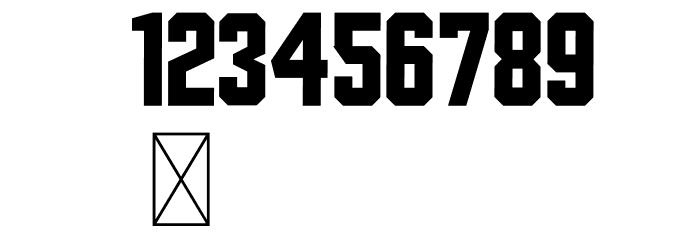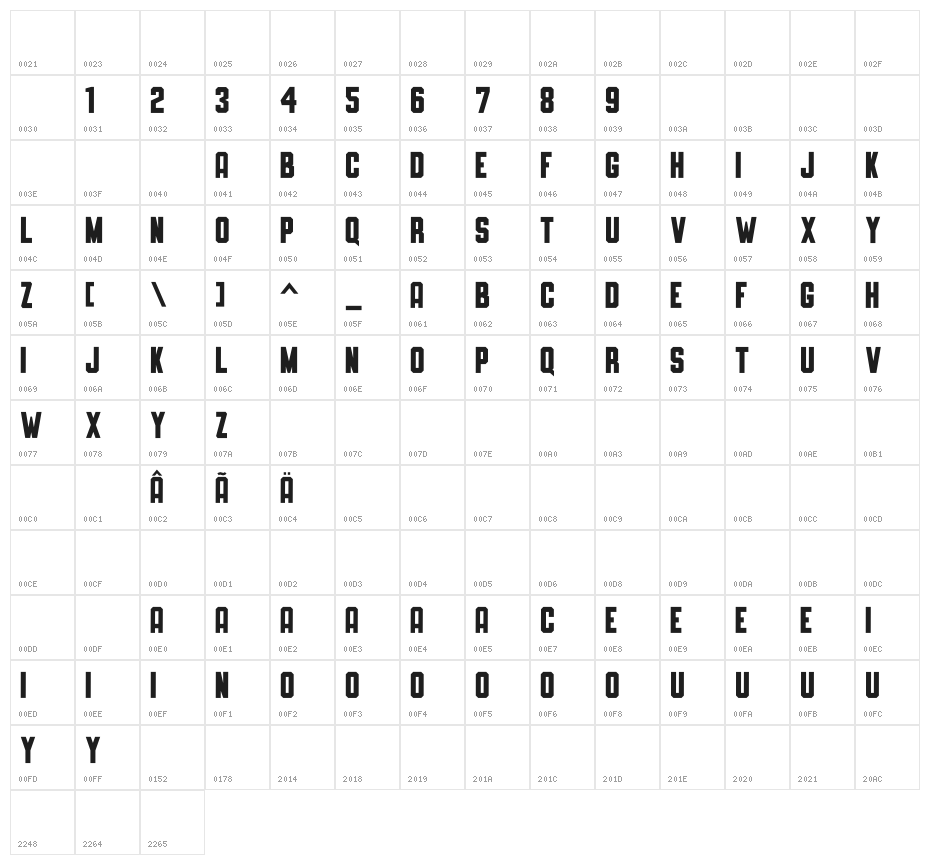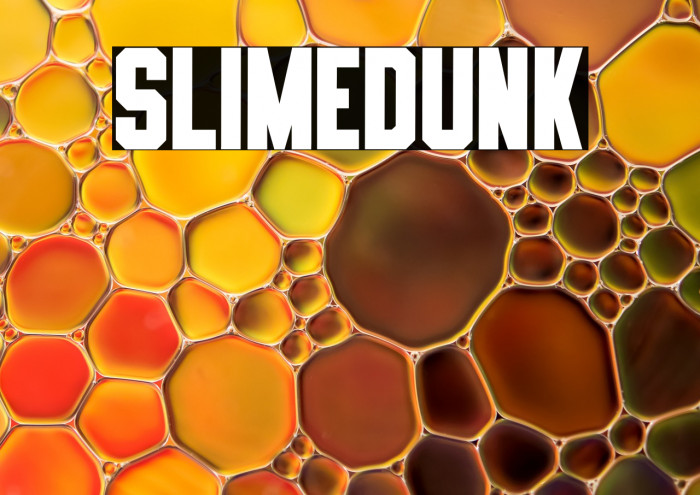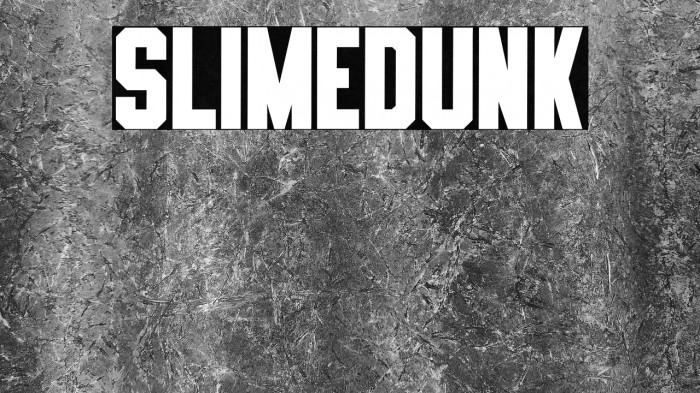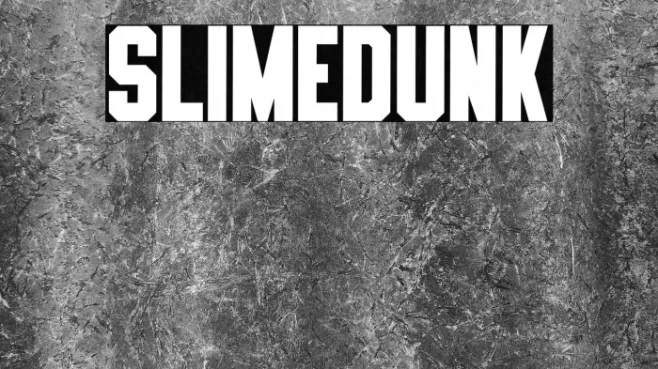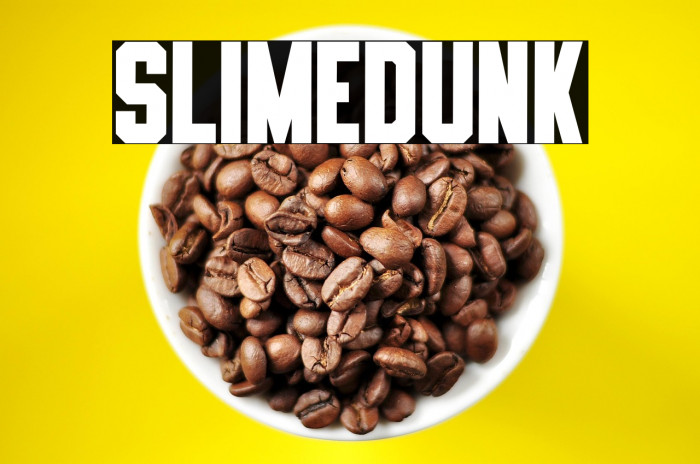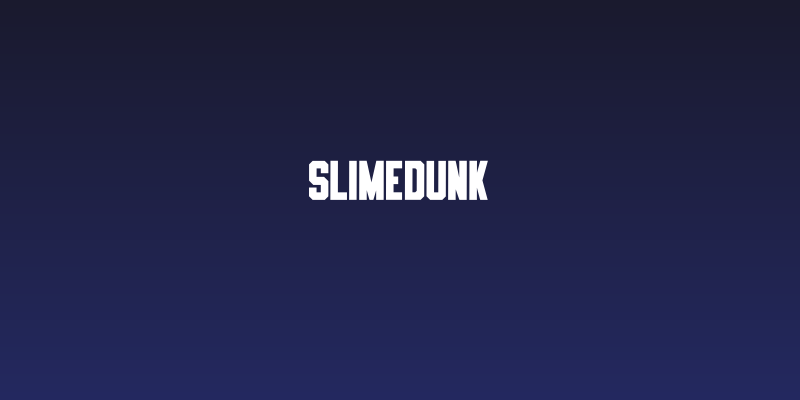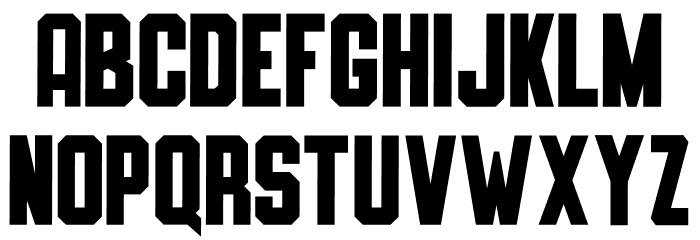
SLIMEDUNK Font
SLIMEDUNK Description
This font features a bold, geometric design with strong, angular lines and a solid presence. The uppercase letters are uniform in height, creating a cohesive and structured appearance. The numbers follow the same bold style, ensuring consistency across all characters. The absence of lowercase letters suggests a focus on impactful, attention-grabbing text. This font's design is reminiscent of sports or action-themed typography, making it ideal for dynamic and energetic applications. Its robust and straightforward style ensures readability while maintaining a distinctive and memorable look.
| Proposed Projects | Perfect for sports branding, posters, headlines, and any project requiring a bold, dynamic typeface. |